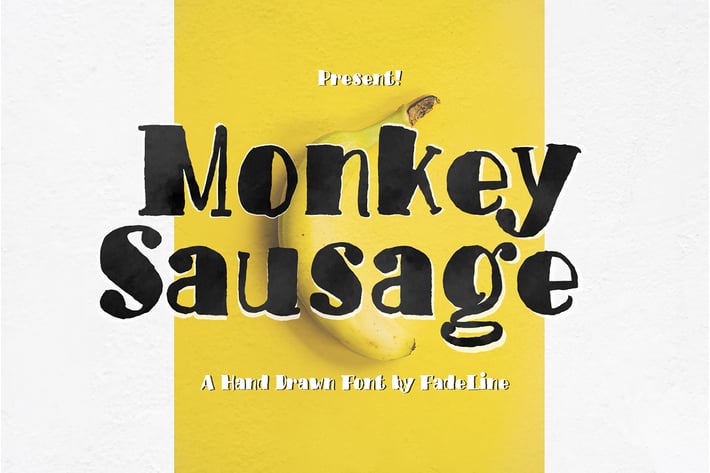
Monkey Sausage! Funny Font
Introducing Monkey Sausage! Funny Font!
Monkey Sausage is a hand-drawn slab type brush font. This font adopts a bold, firm, natural and trendy style. Very suitable to meet your design and packaging product needs at this time, especially when the current trend is Branding on MUG or CUP with natural fonts like painted. Please try!
With a style like this, this font will be suitable in use for logo's, branding projects, homeware designs, product packaging, mugs, quotes, posters, shopping bags, logo's, t-shirts, book covers, name card, invitation cards, greeting cards, and all your other lovely projects.
You can use this font for your job very easily. Because there are many features in it. Contains the complete set of lower and uppercase letters, punctuation, numbers, web fonts, and multilingual support. This font also includes several ligatures and alternative style Stylistic Set For those of you who have software that is capable of working OpenType (Corel Draw / Photoshop / Illustrator / InDesign).